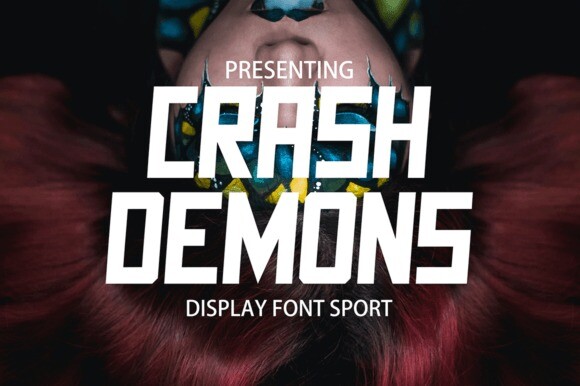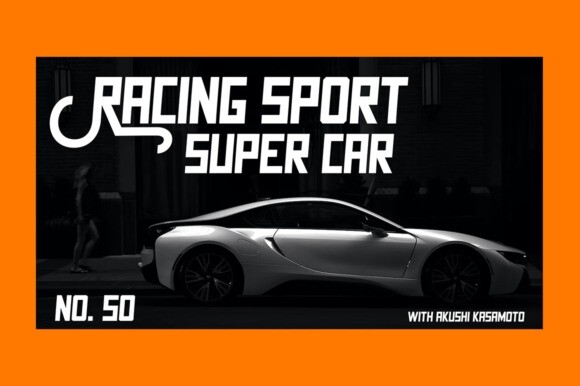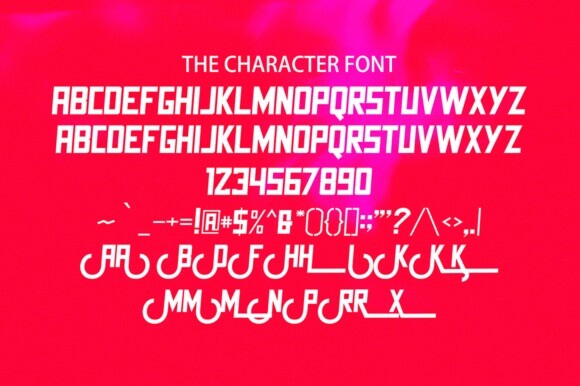
Crash Demons Font
Crash Demons Font is a cool and modern display font. Fall in love with its incredibly distinct and timeless style and use it to create spectacular designs!